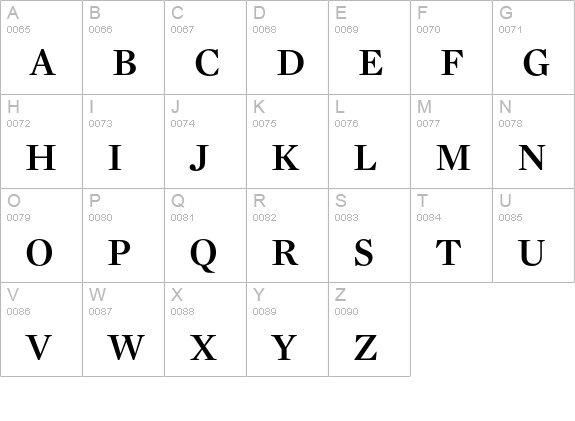
Mercury Display Semibold Font Details
Mercury Display Semibold is a sub-bold, structured variant in the Mercury typeface family \xE2\x80\x94 well suited to sub-headlines and emphasised passages.
Mercury Display Semibold font is a versatile and modern typeface that strikes the perfect balance between elegance and readability. With its bold strokes and clean lines, this font exudes a sense of confidence and professionalism that is ideal for a wide range of design projects. The strong presence of Mercury Display Semibold makes it a standout choice for headlines, titles, and other prominent text elements. Its distinctive letterforms are both eye-catching and easy to read, making it a great option for both print and digital design applications. What's even better is that Mercury Display Semibold font is available for free download at FontsMarket.com. So whether you're working on a branding project, editorial layout, or website design, you can easily access this stylish and impactful typeface without breaking the bank. Elevate your designs with the bold and contemporary look of Mercury Display Semibold today!